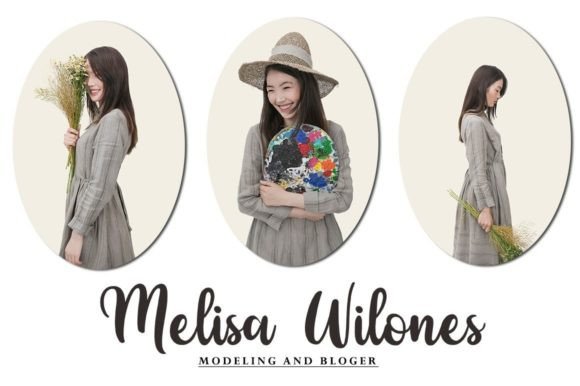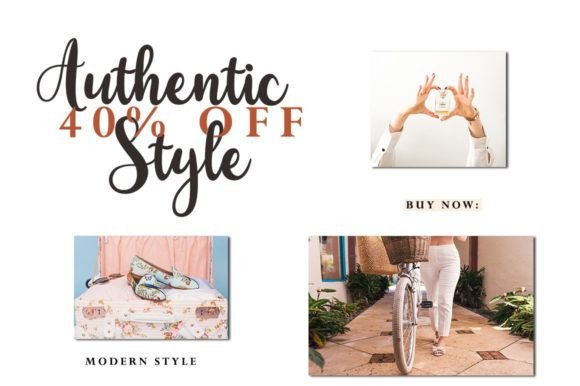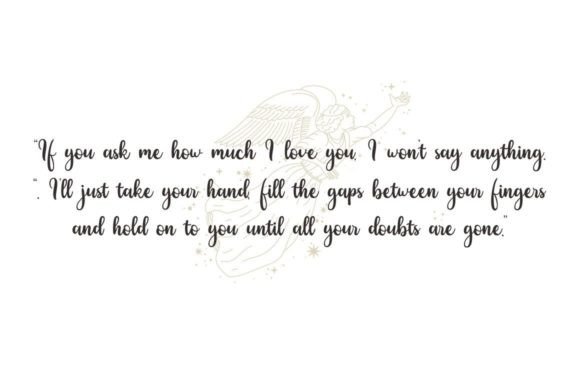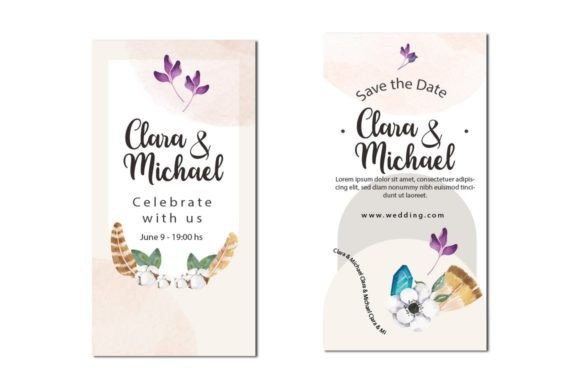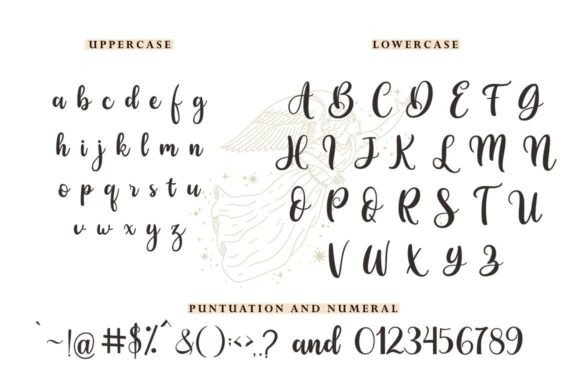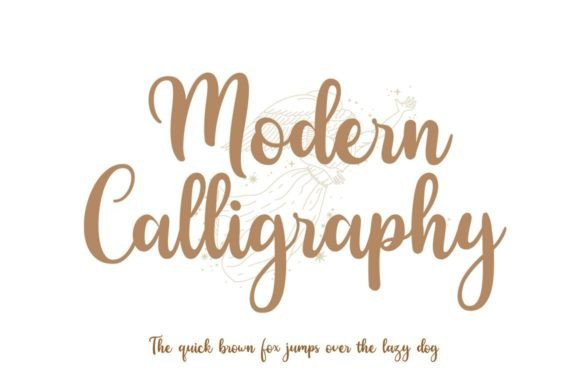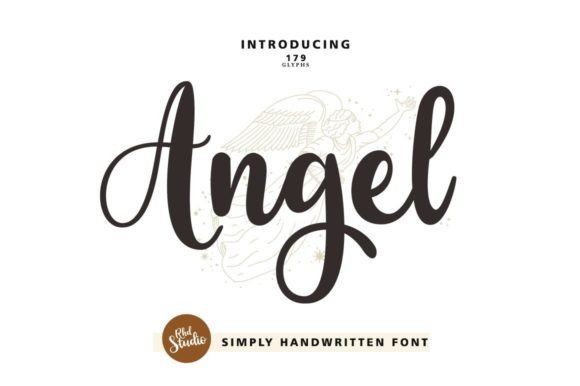
Introducing Angel Font: A Lovely and Charming Script Font
Are you looking for a font that can add a touch of elegance and romance to your design projects? Look no further than Angel Font! This beautiful script font is perfect for designers and crafters who want to create stunning visuals that capture the hearts of their audience. In this article, we’ll dive into the world of Angel Font and explore its features, benefits, and uses.
What is Angel Font?
Angel Font is a lovely and charming script font that is designed to add a joyful and romantic touch to your projects. Its gentle curves and flowing lines make it perfect for creating beautiful and eye-catching designs. Whether you’re working on a wedding invitation, a branding project, or a digital graphic, Angel Font is sure to impress.
Features of Angel Font
So, what makes Angel Font so special? Here are some of its key features:
- Beautiful Script Design: Angel Font features a stunning script design with flowing lines and gentle curves. Its unique and elegant look makes it perfect for creating romantic and sophisticated designs.
- High-Quality Typography: This font is designed with high-quality typography in mind. Its clear and crisp letters make it easy to read and perfect for use in a variety of design projects.
- Versatile and Flexible: Angel Font is incredibly versatile and flexible. It can be used in a variety of design projects, from wedding invitations and branding materials to digital graphics and more.
Benefits of Using Angel Font
So, why should you choose Angel Font for your design projects? Here are some of the benefits of using this lovely font:
- Adds a Touch of Romance: Angel Font is designed to add a touch of romance and elegance to your designs. Its beautiful script design and flowing lines make it perfect for creating stunning and eye-catching visuals.
- Perfect for Wedding and Bridal Designs: If you’re working on a wedding or bridal design project, Angel Font is a perfect choice. Its romantic and elegant look makes it ideal for creating beautiful wedding invitations, save-the-dates, and more.
- Increases Readability: Angel Font is designed with readability in mind. Its clear and crisp letters make it easy to read, even at small sizes.
Uses of Angel Font
So, what can you use Angel Font for? The possibilities are endless! Here are some ideas to get you started:
- Wedding Invitations: Create beautiful and romantic wedding invitations with Angel Font. Its elegant and flowing design makes it perfect for this type of project.
- Branding Materials: Use Angel Font to create stunning branding materials, such as logos, business cards, and letterheads.
- Digital Graphics: Add a touch of elegance and romance to your digital graphics with Angel Font. Its beautiful script design makes it perfect for use in social media graphics, blog posts, and more.
- Crafting Projects: If you’re a crafter, Angel Font is a great choice for your projects. Use it to create beautiful and eye-catching titles, headings, and more.
Tips for Using Angel Font
Here are some tips for using Angel Font in your design projects:
- Pair it with Other Fonts: Angel Font looks great when paired with other fonts. Try pairing it with a bold and modern font for a stunning contrast.
- Use it in Large Sizes: Angel Font is designed to be used in large sizes. Try using it in headings and titles for maximum impact.
- Experiment with Colors: Angel Font looks great in a variety of colors. Try experimenting with different colors and gradients to find the perfect look for your project.
In conclusion, Angel Font is a lovely and charming script font that is perfect for designers and crafters who want to add a touch of elegance and romance to their projects. Its beautiful design, high-quality typography, and versatility make it a great choice for a variety of design projects. Whether you’re working on a wedding invitation, a branding project, or a digital graphic, Angel Font is sure to impress.